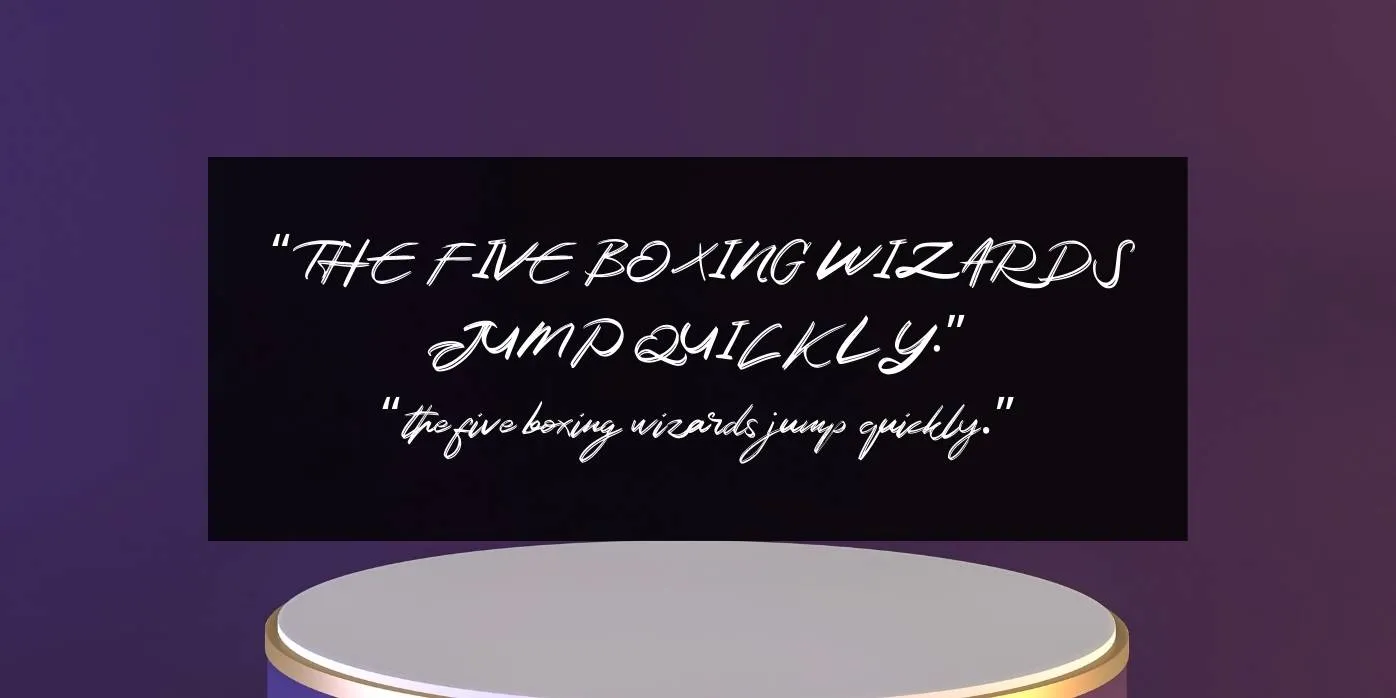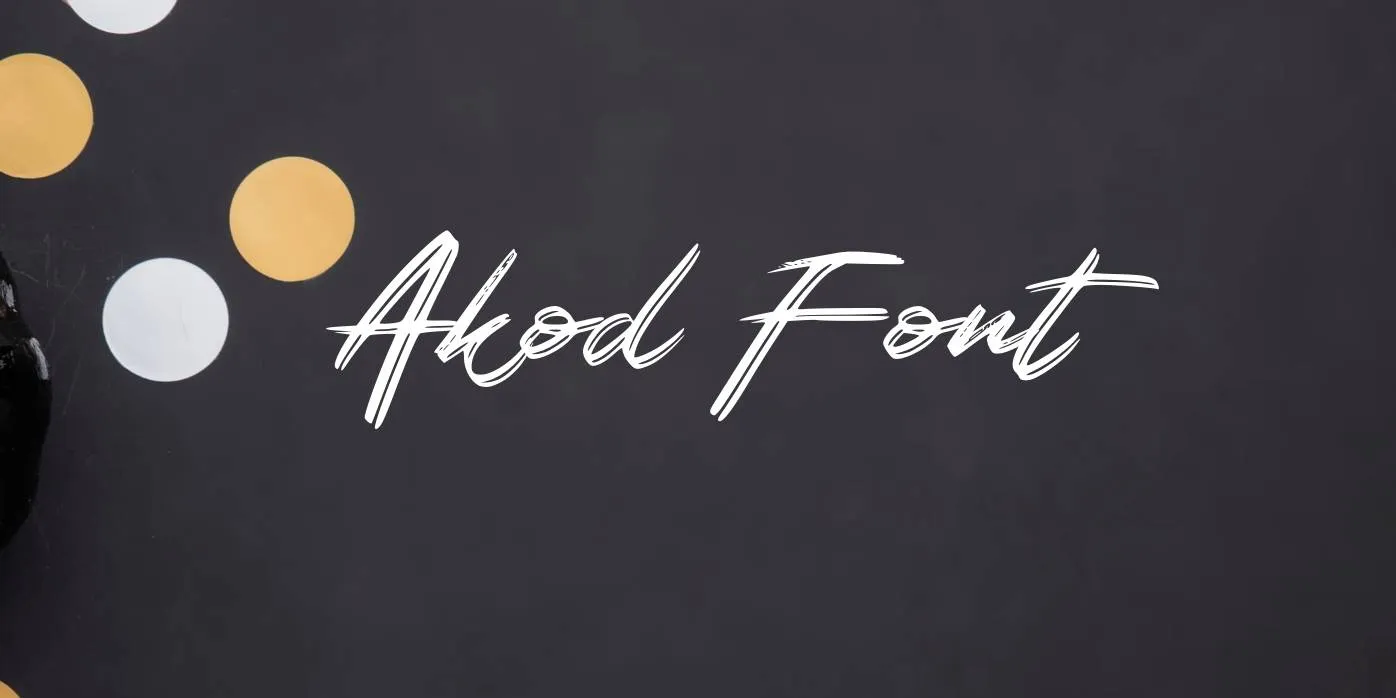
Akod Font
Here we present Akod Font which was designed and shared by Vunira Design. It is a part of the script font family. This gorgeous font features unique characters and a stylish design. The Akod Font is perfect for branding, invitations, headers, web designs, logos, and much more.
Akod Script was created with a touch of natural handwritten calligraphy. It contains a full set of beautiful uppercase and lowercase letters, as well as multilingual support, numbers, and punctuation marks. This font also supports OpenType features such as stylistic alternates, ligatures, and swashes. It is not a part of google fonts.
You can use julias dream font which has the same textures and characters as this one. This font comes with PUA encoded glyphs which allow full access to all the extra characters without having special designing software. Also with this font, you can easily make customizations to your designs in Microsoft Word, Adobe Photoshop, Adobe Illustrator, and so on.